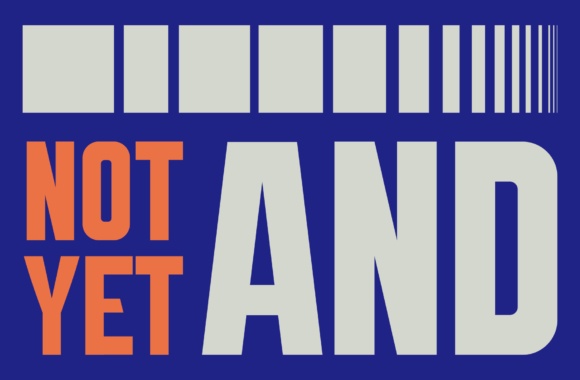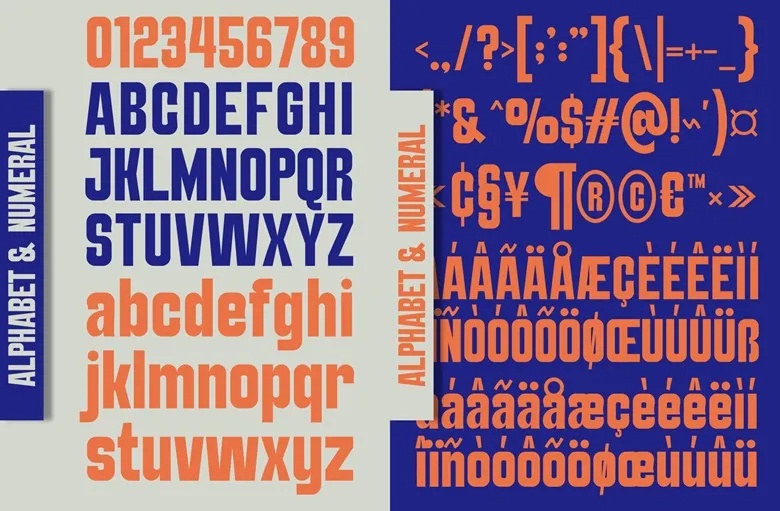
Growpia Font
Growpia is an elegant and modern bold condensed sans serif typeface, designed to make a strong visual impact. With its confident style and striking presence, Growpia is ideal for projects that need to stand out—whether it’s headlines, titles, or logos. This font brings a bold and stylish edge to posters, banners, and branding materials, ensuring your message is both visible and memorable.
Growpia Sans Serif Font